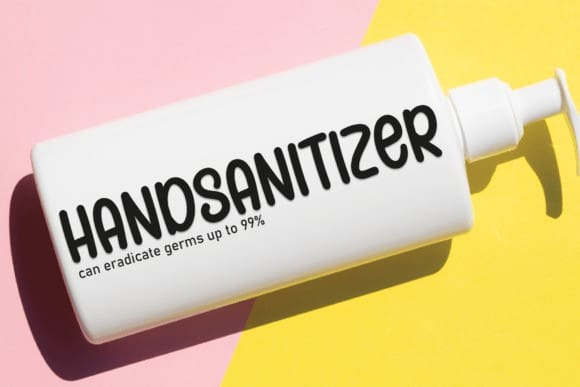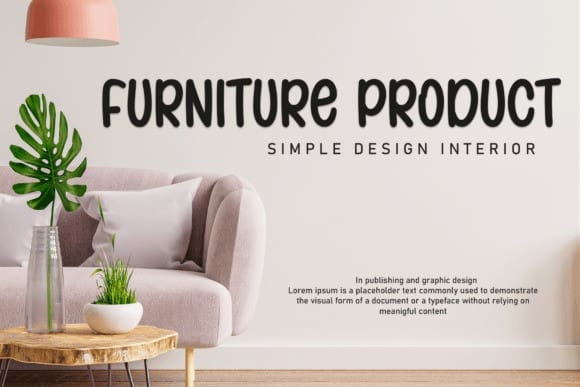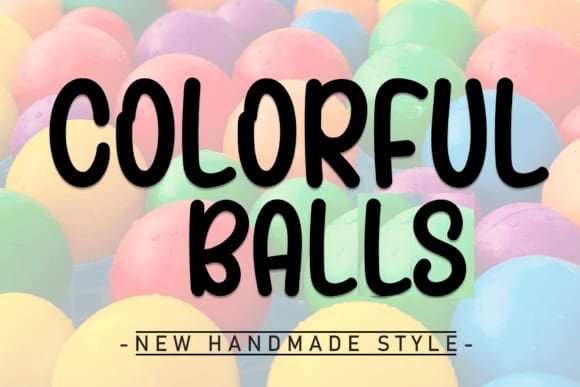
Colorful Balls Font
Colorful Balls Font is a sweet and friendly handwritten font. Fresh and cute, this font is ideal for writing wedding invitations, cards, or any other design that might need a fun touch!